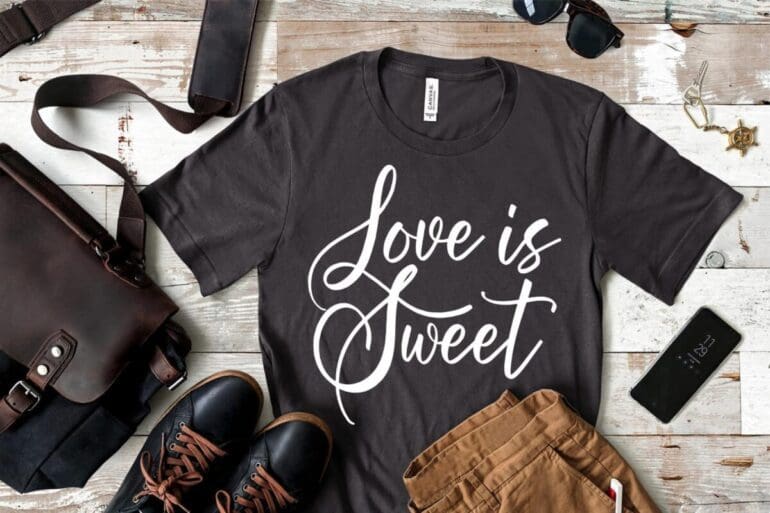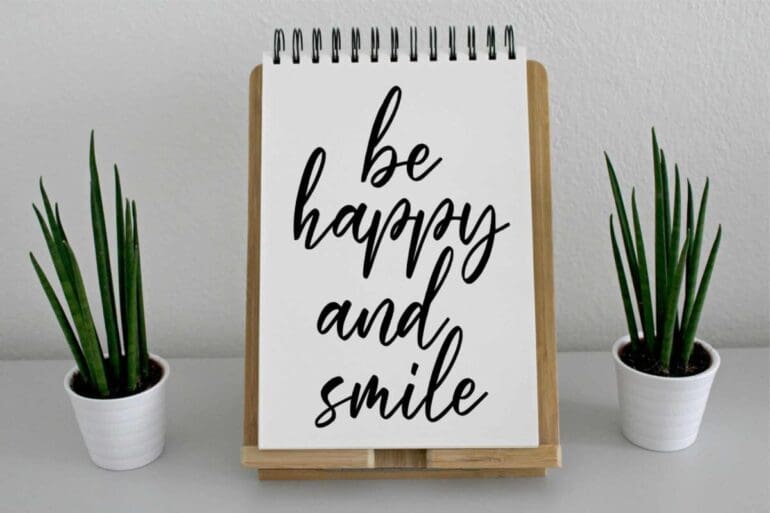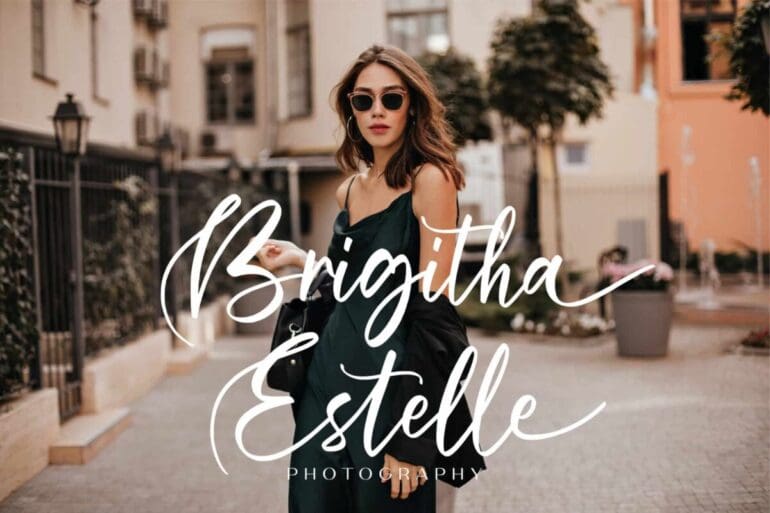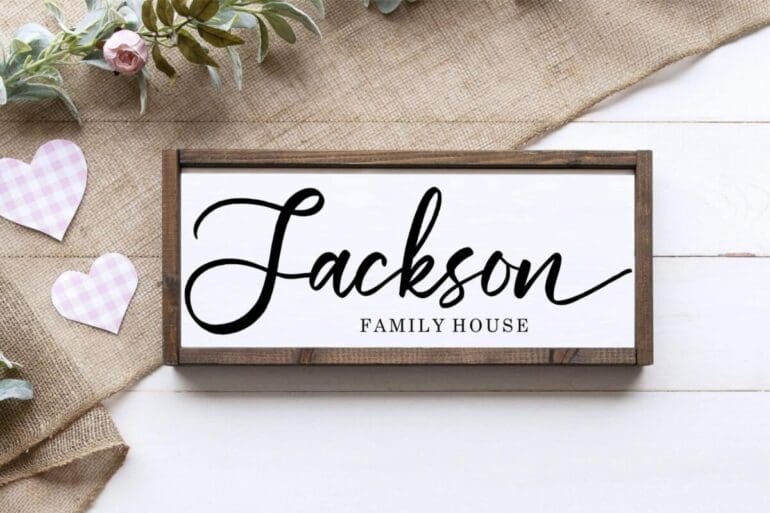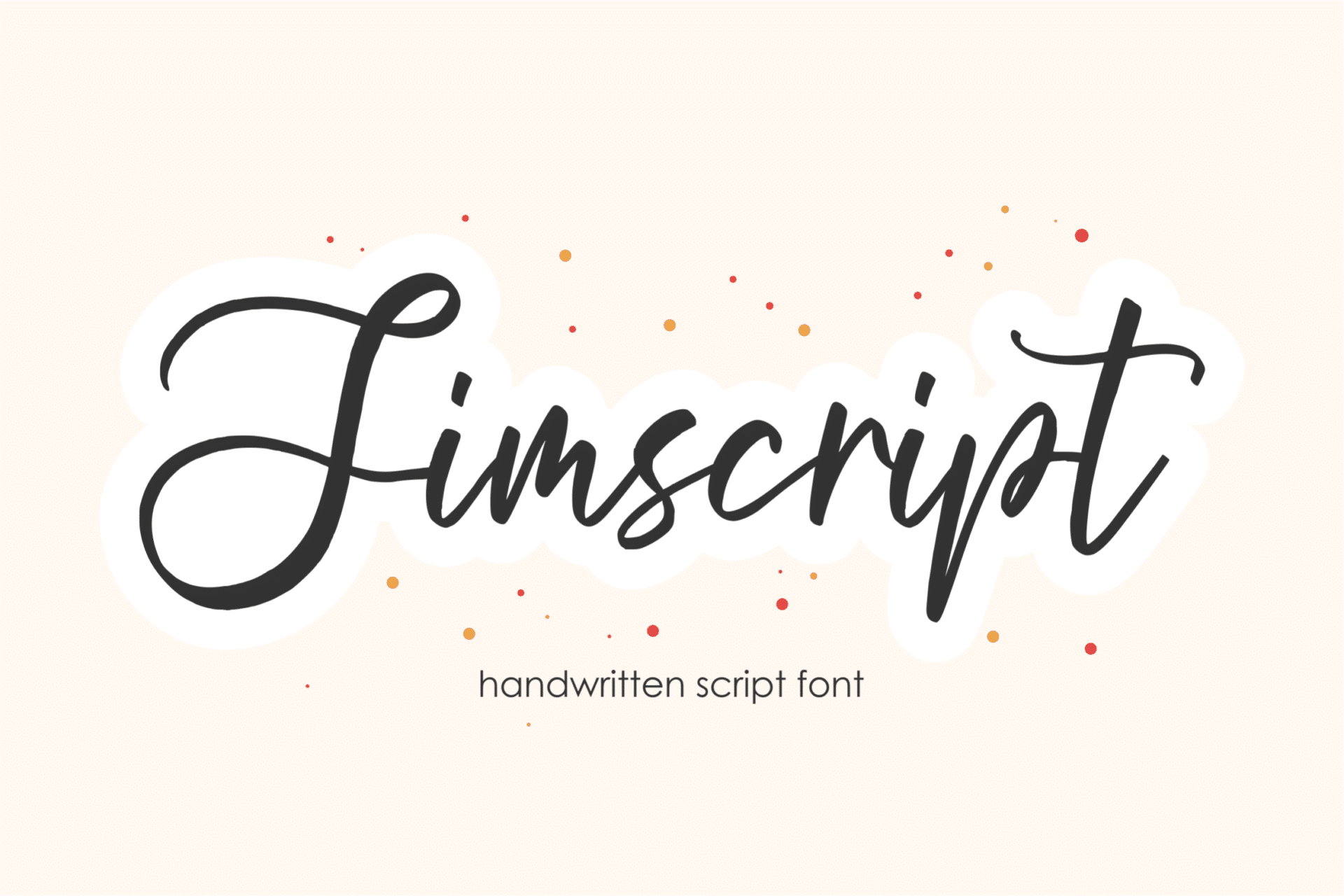
Jimscript Font
Jimscript is a lovely script font. It is perfect for product packaging, branding project, magazine, social media, wedding invitations, or just used to express words above the background.